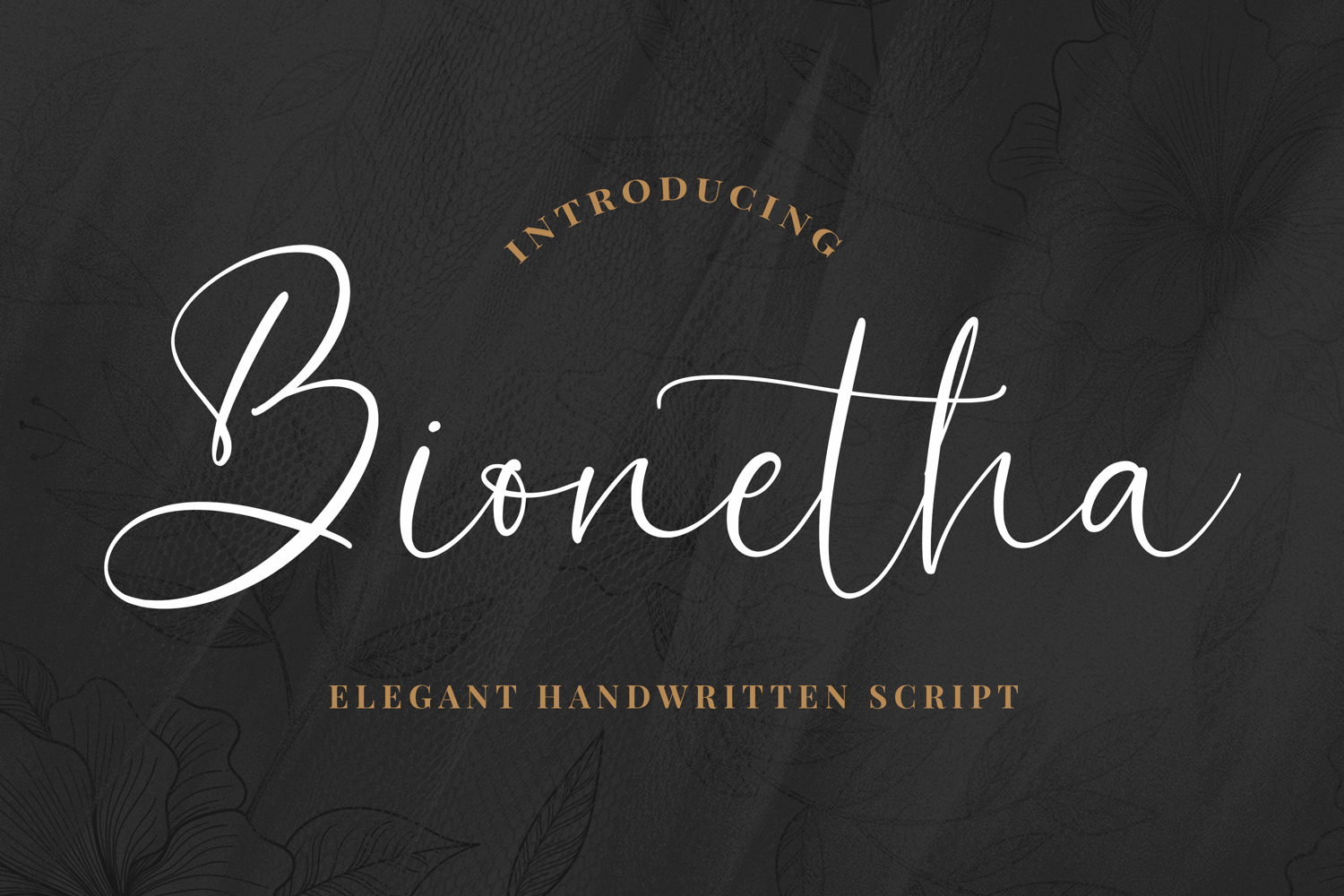
Bionetha - Elegant Handwritten Script
Introducing Bionetha – Elegant Script is a Quality script that is written casually and quickly. Letters are made with Sign on paper. Then scanned and carefully drawn into vector format. Bionetha is perfect for homeware designs,branding projects, Logo, design, Quotes, Product packaging, Photography, Watermark